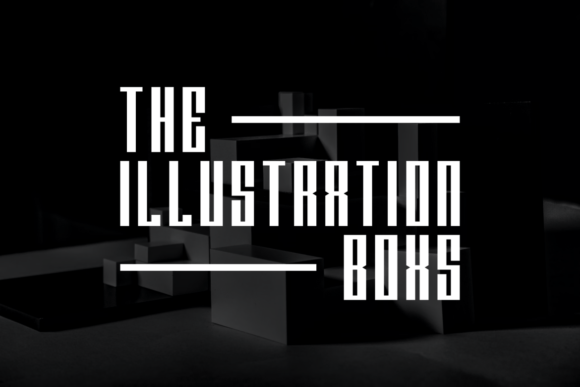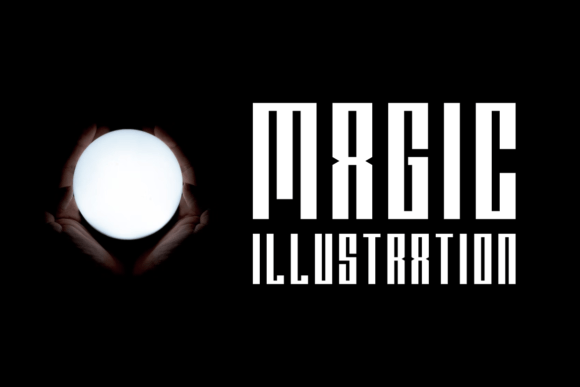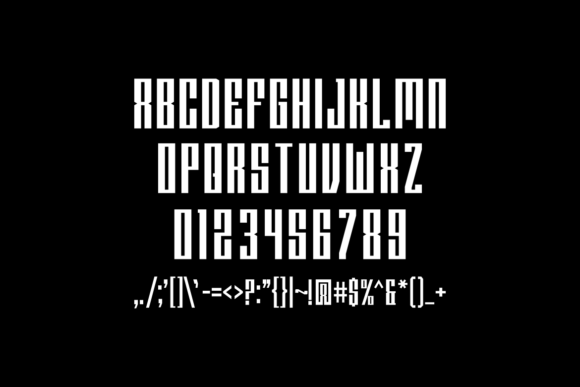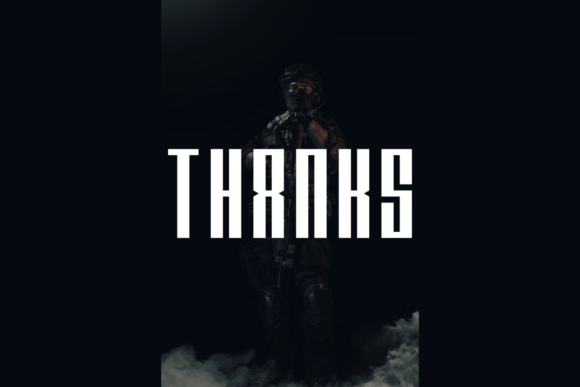
Introduction to Saldiers Font
Have you ever been working on a creative project, pouring your heart and soul into every detail, only to realize that the perfect font is just out of reach? That’s where the Saldiers Font comes in – a game-changing addition to your design arsenal that’s sure to elevate your high-quality work.
Whether you’re designing a logo, creating eye-catching graphics for a t-shirt printing project, or looking to give your esports branding a bold new look, the Saldiers Font is the perfect design resource. Its authentic display style is versatile enough to shine in a wide range of contexts, from digital to print, and even online with a transparent background.
Key Features of Saldiers Font
- High-quality design suitable for creative projects and modern designs
- Unique characteristics: bold, modern, and elegant design, perfect for creating eye-catching headlines and titles
- Easy to customize and modify, allowing designers to tailor the font to their specific creative project needs
Honest Review: Saldiers Font
I recently had the opportunity to work with Saldiers Font on a creative project, and I was excited to see how it would perform. Overall, I was impressed with the results.
- High-quality design: The font has a clean and modern aesthetic, making it perfect for a wide range of creative projects.
- Limited character set: While Saldiers Font is available in a range of styles and weights, the character set is limited compared to more comprehensive fonts.
- Not ideal for complex text: Due to its modern aesthetic, Saldiers Font may not be the best choice for complex text or body copy.
Overall, I was impressed with Saldiers Font and its potential as a design resource. While it has some limitations, it’s a great option for designers working on creative projects who need a high-quality, free font.
Tips for Getting the Most Out of Saldiers Font
For optimal results, use Saldiers Font on a transparent background to achieve a high-quality, visually appealing design. Experiment with different font sizes and styles to find the perfect fit for your creative project.
Saldiers Font is ideal for a variety of design projects, including logos, social media graphics, and infographics. Its high-quality design makes it a valuable design resource for creatives of all levels.